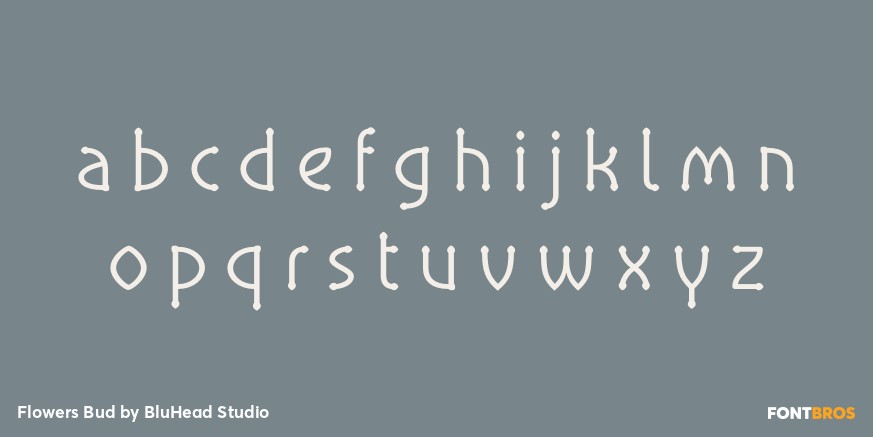
Flowers Bud
Font Style by BluHead Studio
Flowers Bud is one of a collection of 3 typefaces in two weights, drawn by British designer Roy Preston. The Flowers fonts share a common clean and narrow design, with oval-shaped rounds and distinctive individual letter shapes that give each font a unique character all their own. Flowers Bud is the second typeface in the series and adds an inverted spade-shaped serif to the terminal ends of the strokes. It is clean and legible and usable for text runs, and there is a companion bold weight perfect for headlines and display applications.